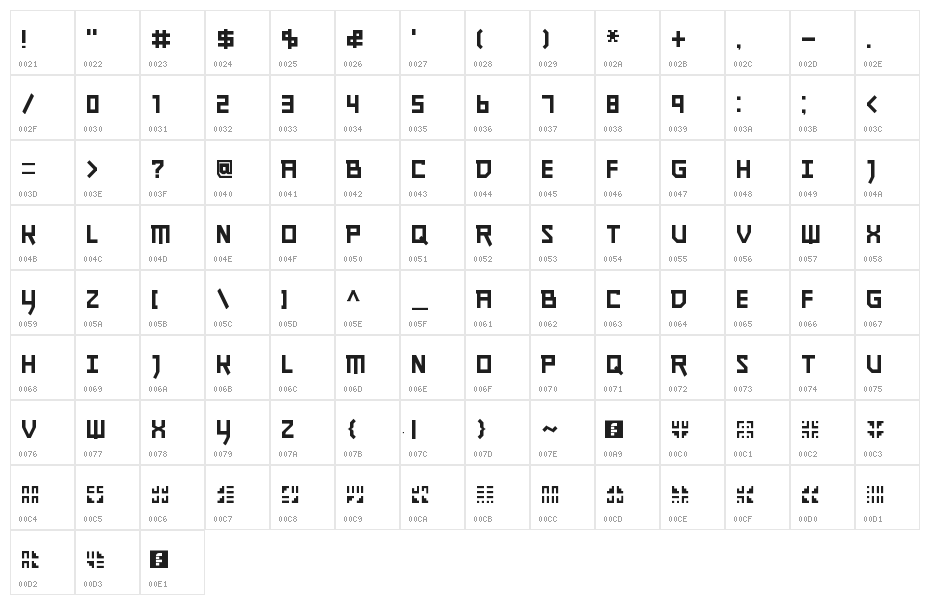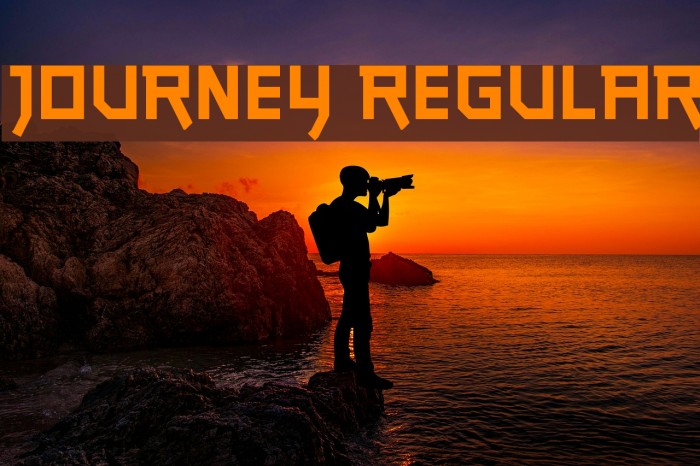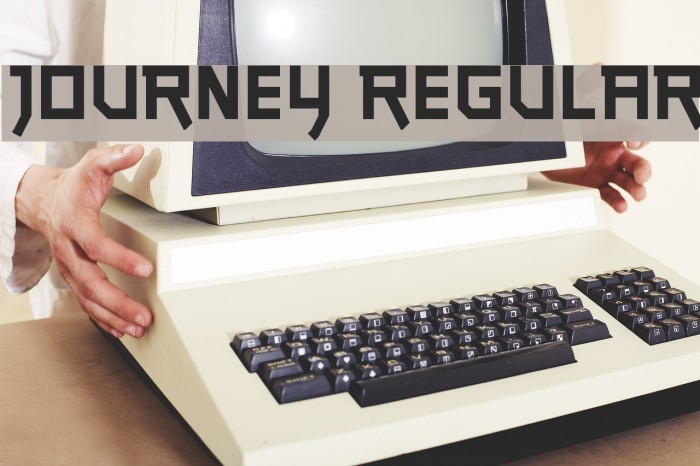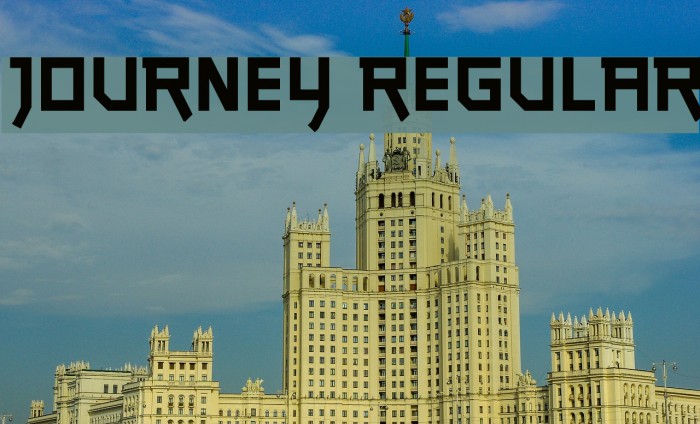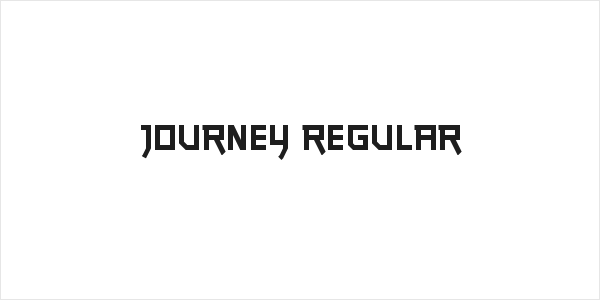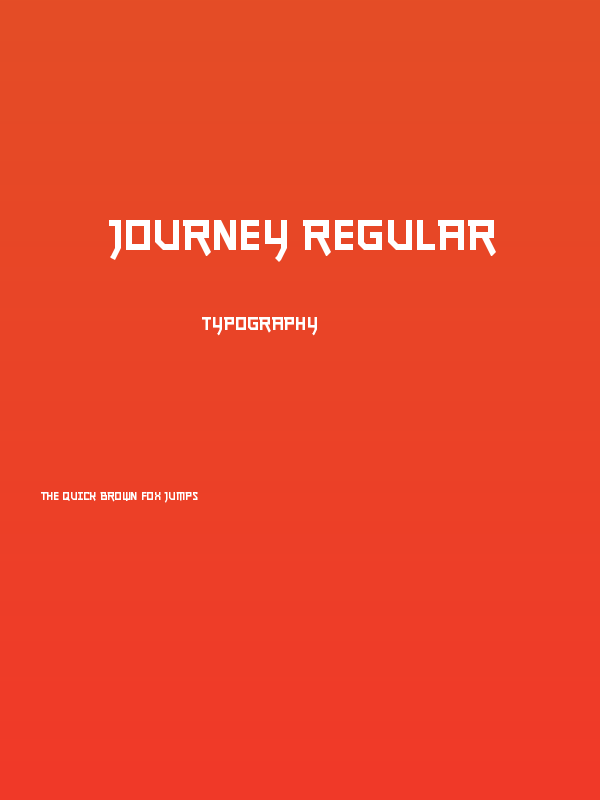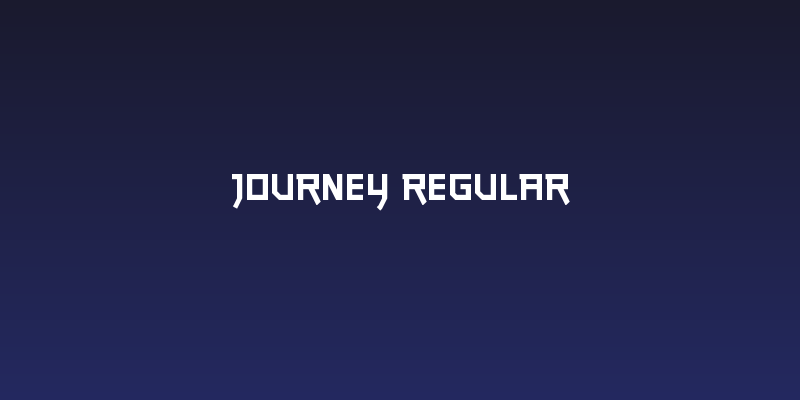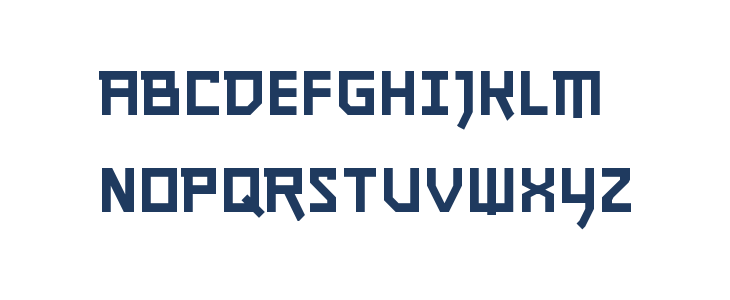
journey Regular Font
journey Regular Description
This font features a bold and geometric design with sharp angles and a modern aesthetic. The uppercase letters are uniform in height, creating a strong and cohesive appearance. The lowercase letters maintain the same angular style, ensuring consistency throughout. Numbers are clear and distinct, with a similar geometric structure. Special characters are designed to match the overall theme, providing a complete and versatile typeface. The font's boldness and unique style make it suitable for attention-grabbing designs.
| Proposed Projects | Ideal for branding, posters, headlines, and any design requiring a strong visual impact. |